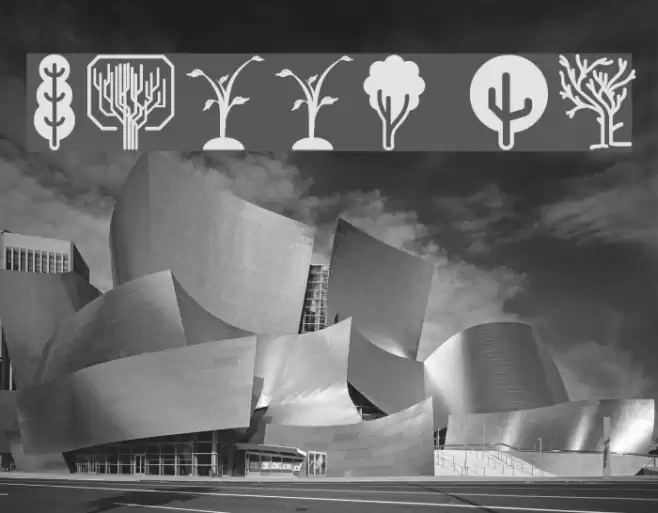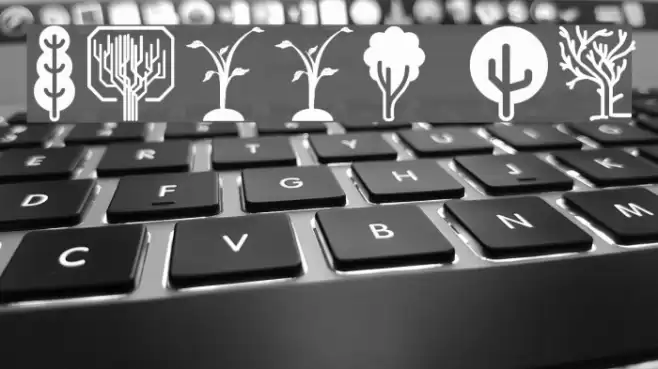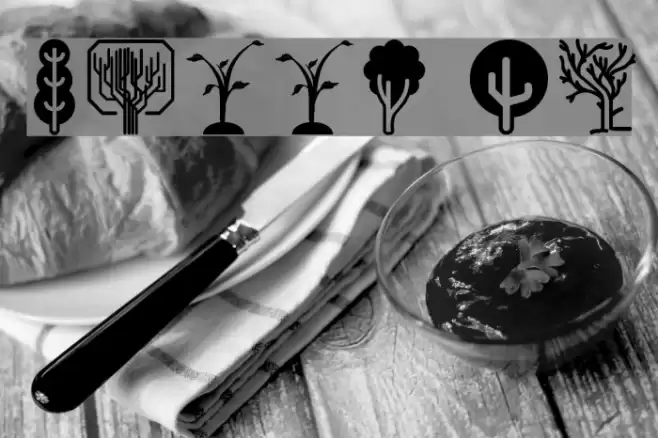
Trees Go Font
Trees Go Description
This is a decorative font that creatively incorporates tree and plant motifs into its design. Each character is uniquely crafted to resemble various types of trees, offering a playful and nature-inspired aesthetic. The numbers and special characters maintain a classic serif style, providing a contrast to the whimsical tree designs. This blend of nature and typography makes it ideal for projects that aim to evoke a sense of the outdoors or environmental themes. The font's distinct style is both eye-catching and versatile, suitable for a range of creative applications.
A decorative font featuring tree motifs with classic serif numbers and symbols from Uncategorized fonts.
- Proposed Projects: Ideal for eco-friendly branding, nature-themed posters, environmental campaigns, and creative invitations.
- Use Case: Logos, Posters, Invitations